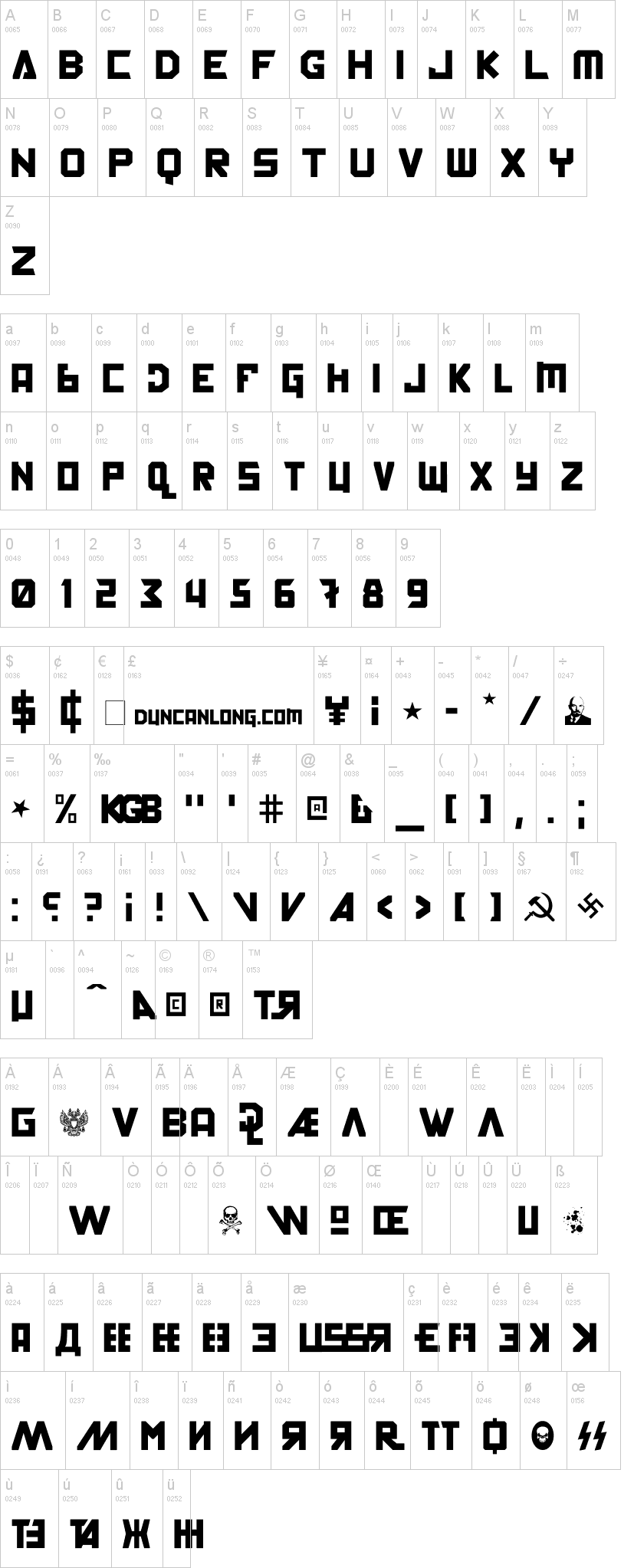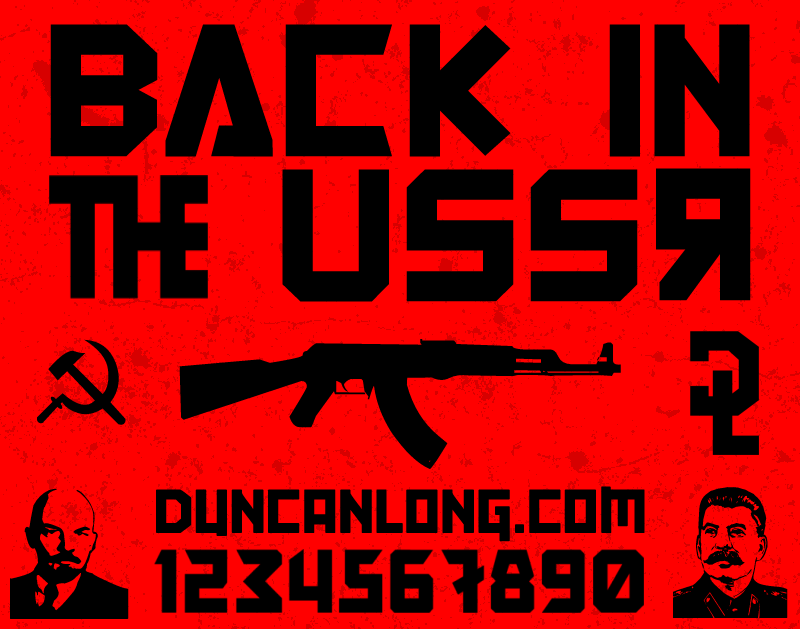
Шрифт Back In The USSR DL
Created for issue 4 of Critica Grafica magazine. A number of "extras" for use in graphic design. Visit my site for more information: DuncanLong.com Commercial licensing is available.